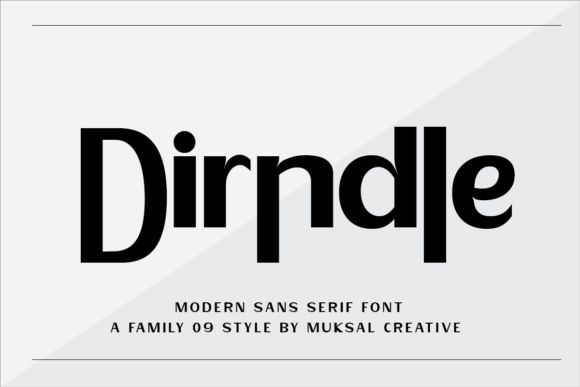
Unlocking Your Creative Potential with the Dirndle Font
Enter the Dirndle Font, a modern sans serif font that’s tailor-made for designers looking to elevate their projects. This authentic font is perfect for logotypes, headlines, and corporate identities, making it a valuable addition to any designer’s toolkit. With its cool, modern aesthetic, the Dirndle Font is ideal for a wide range of creative projects, from apparel and posters to music, movies, and websites.
Dirndle Font Key Features
- Font Family: Dirndle is a sans-serif font, designed to be modern and clean.
- Unique Characteristics: Dirndle features a unique blend of geometric and organic shapes, giving it a distinctive and modern look.
- Language Support: Dirndle supports a wide range of languages, including Latin, Cyrillic, and Greek scripts, making it a versatile font for global applications.
Dirndle Font Review
Overall, I was excited to dive into the Dirndle Font, and while it has its moments, I found some interesting trade-offs. ✨ Let’s start with what works well:
- The Dirndle Font’s quirky, vintage aesthetic is certainly unique and eye-catching. I can imagine it working well in projects that require a playful, offbeat vibe.
- The font’s OpenType features allow for some lovely ligatures and swashes, which can add a touch of elegance to text-based designs.
- The Dirndle Font is also relatively easy to read, despite its somewhat unconventional letterforms.
However, I did encounter some limitations: ⚠️
- The font’s inconsistent spacing and kerning can make it difficult to use in longer blocks of text. This may not be a deal-breaker for some designers, but it’s something to keep in mind.
- The Dirndle Font’s quirkiness can also be a double-edged sword. While it’s perfect for some projects, it may not be the best choice for more formal or professional designs.
Overall, I think the Dirndle Font is a solid choice for designers who are looking for a unique, vintage aesthetic. While it may not be perfect, it’s certainly worth considering for the right project.
Dirndle Font is ideal for:
- Formal event branding and marketing materials
- High-end product packaging and labels